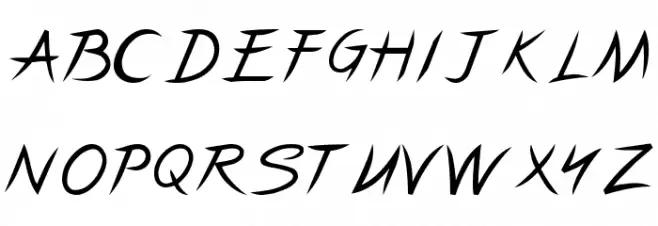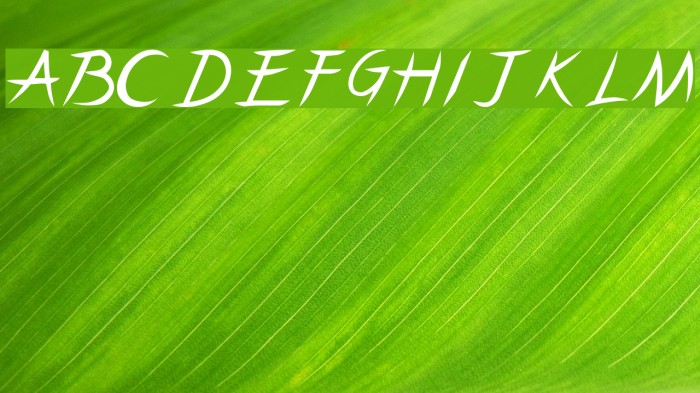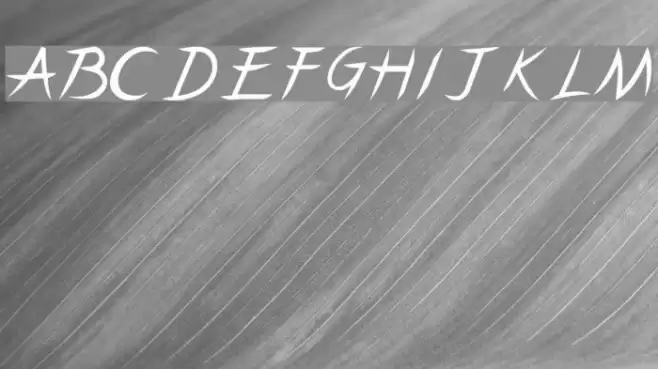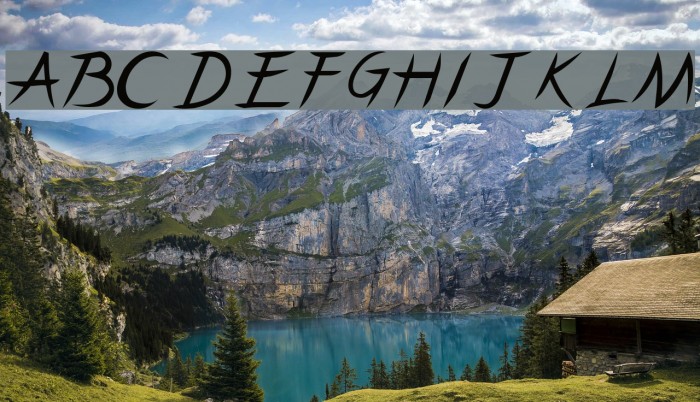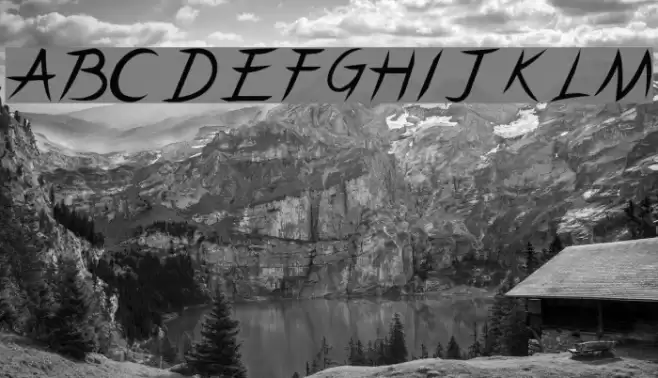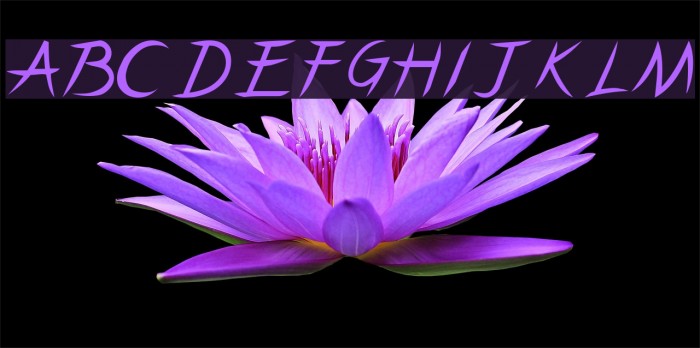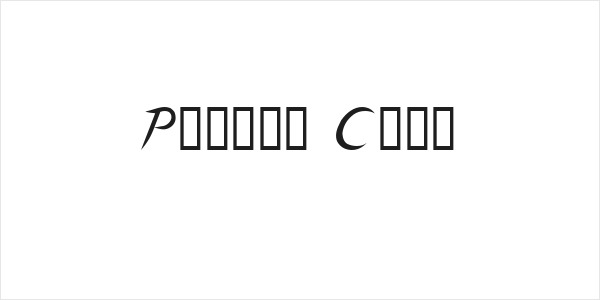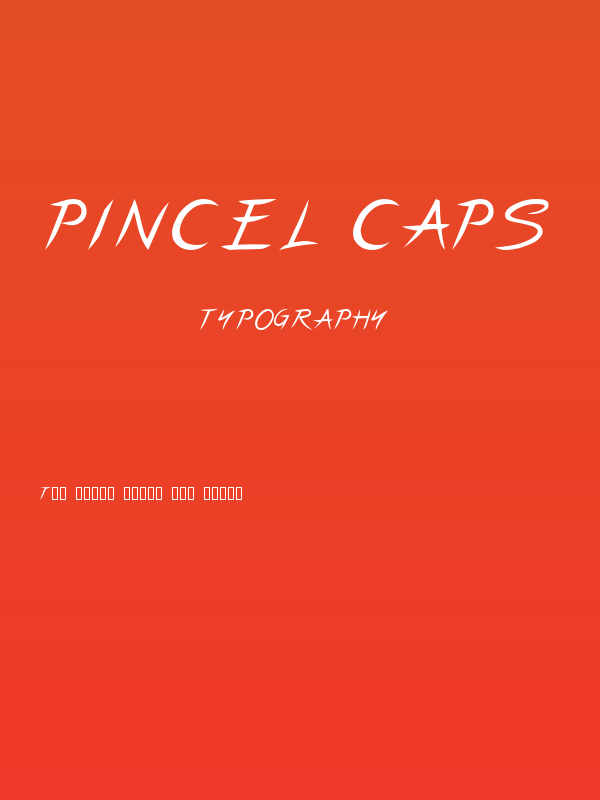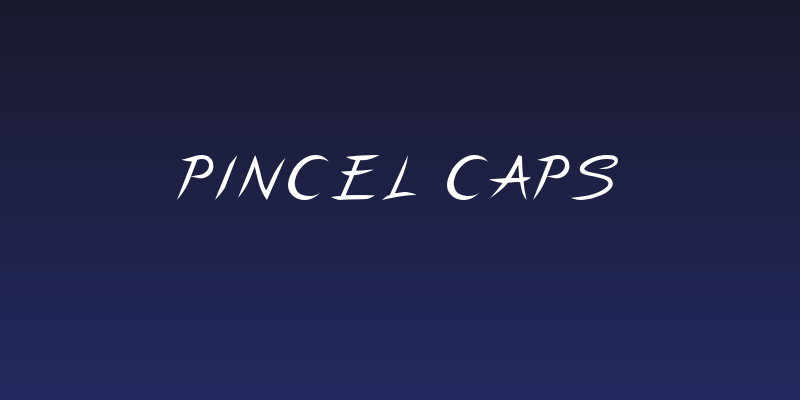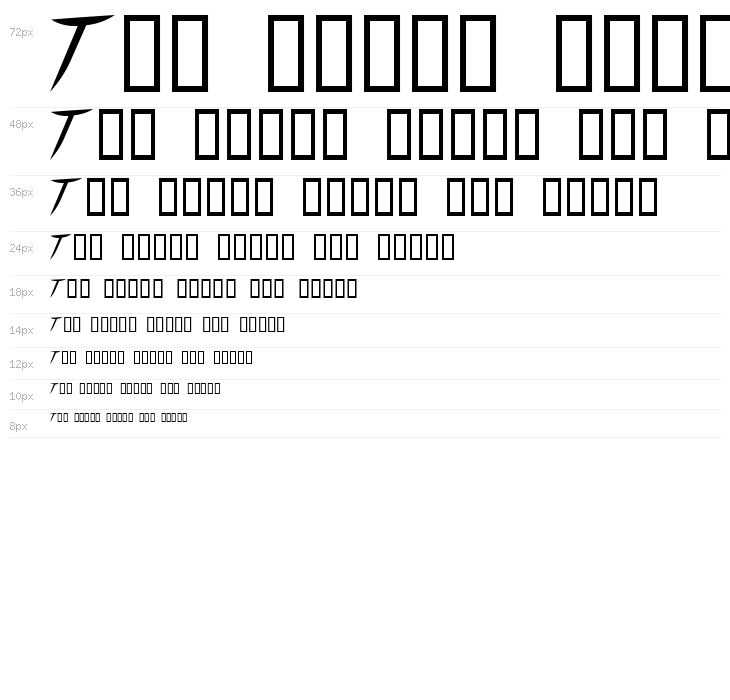
Pincel Caps Font
Pincel Caps Description
This font exudes a dynamic and energetic vibe, characterized by its sharp, angular strokes and fluid, cursive style. The letters are slightly slanted, giving a sense of motion and speed. The uppercase and lowercase letters maintain a consistent style, with elongated and pointed terminals that add a touch of elegance and flair. The numbers and special characters are designed to match the overall aesthetic, ensuring a cohesive look across all text. The font's brush-like appearance makes it ideal for projects that require a personal and artistic touch.
| Proposed Projects | Ideal for creative projects such as logo design, branding, posters, and invitations that require a personal and artistic touch. |